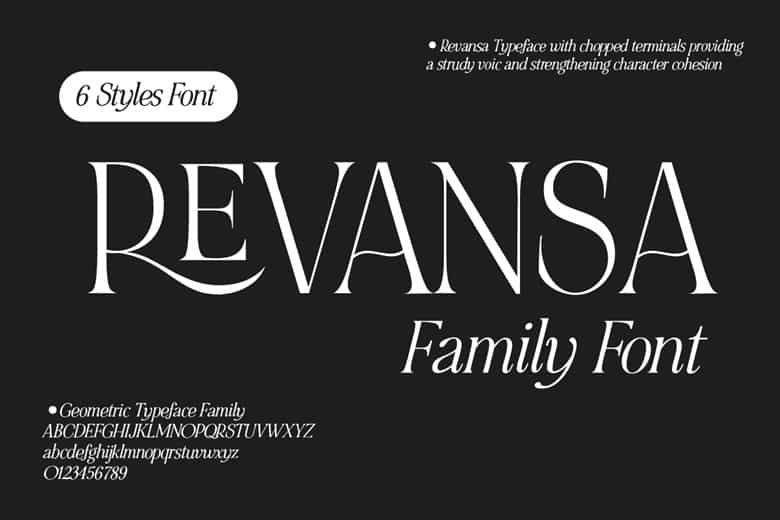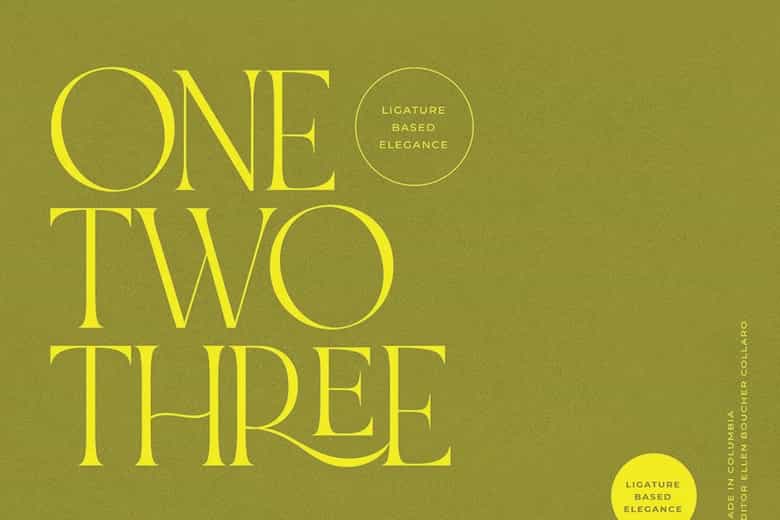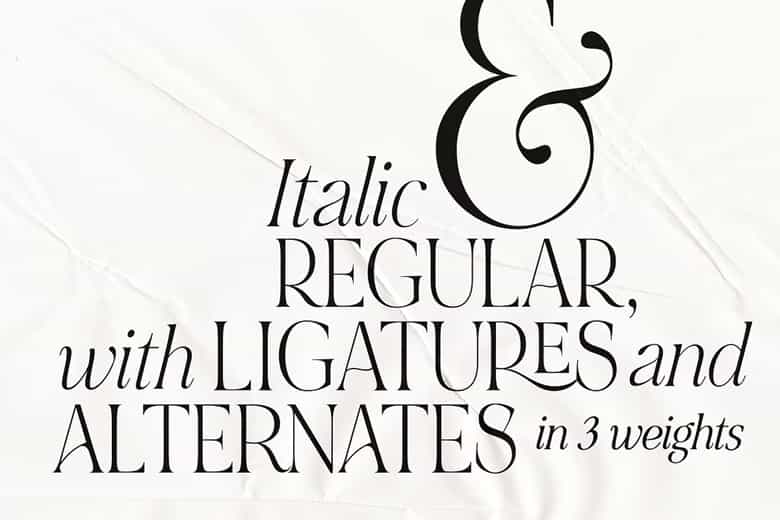
Revansa is a modern and elegant serif typeface. This typeface would be perfect for photography, social media posts, advertisements, logos & branding, invitations, product design, labels, stationery, product packaging, special events, and other projects.